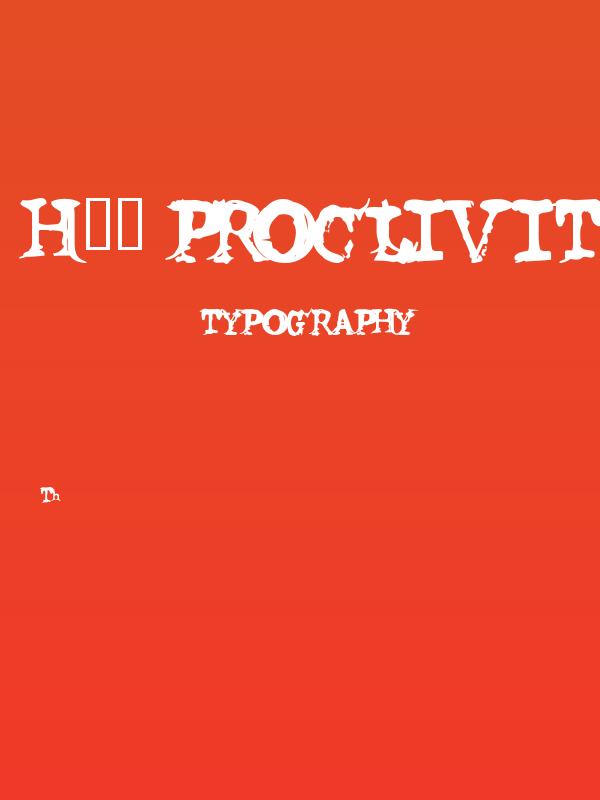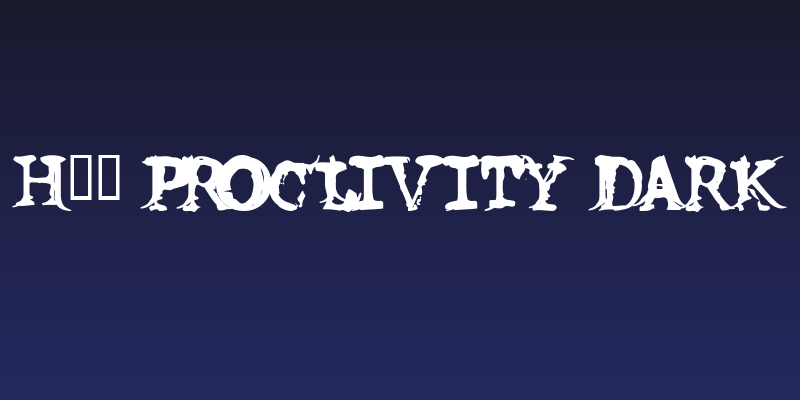
H74 Proclivity dark Font
H74 Proclivity dark Description
This font features a bold and distressed style, with each letter appearing as if it has been weathered or eroded. The uppercase letters are particularly striking, with jagged edges and irregular shapes that give them a rugged, almost chaotic appearance. The font lacks lowercase letters and numbers, focusing instead on a dramatic presentation of the alphabet. The overall design is highly decorative, making it suitable for projects that require a strong visual impact. The unique texture and form of the letters suggest a theme of decay or destruction, which can be effectively used in horror or thriller genres.
| Proposed Projects | Ideal for horror movie posters, Halloween event flyers, or any project needing a dramatic, eerie effect. |